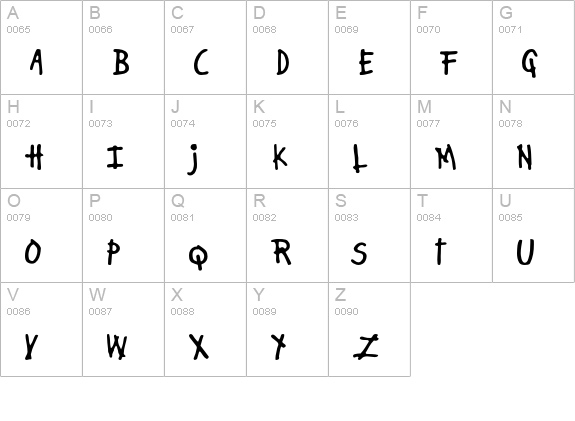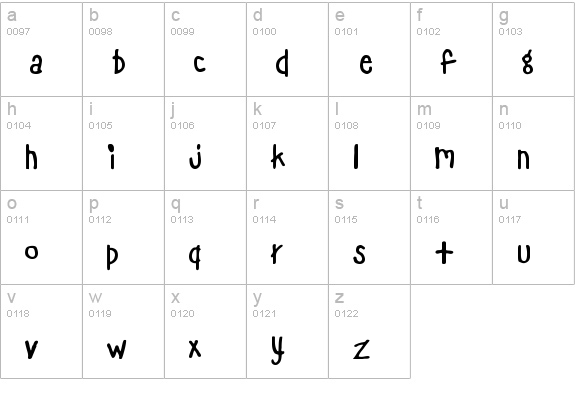
BadDog Font Details
Introducing BadDog font, a bold and eye-catching typeface that exudes a sense of rebelliousness and edginess. With its jagged edges and rough appearance, BadDog font is perfect for projects that require a touch of raw energy and attitude. Whether you're working on a poster for a rock concert or designing a logo for a streetwear brand, BadDog font will make a powerful statement. This unique font is freely available to download at FontsMarket.com, allowing you to add a touch of boldness to your projects without breaking the bank. Embrace the untamed spirit of BadDog font and unleash your creativity today!